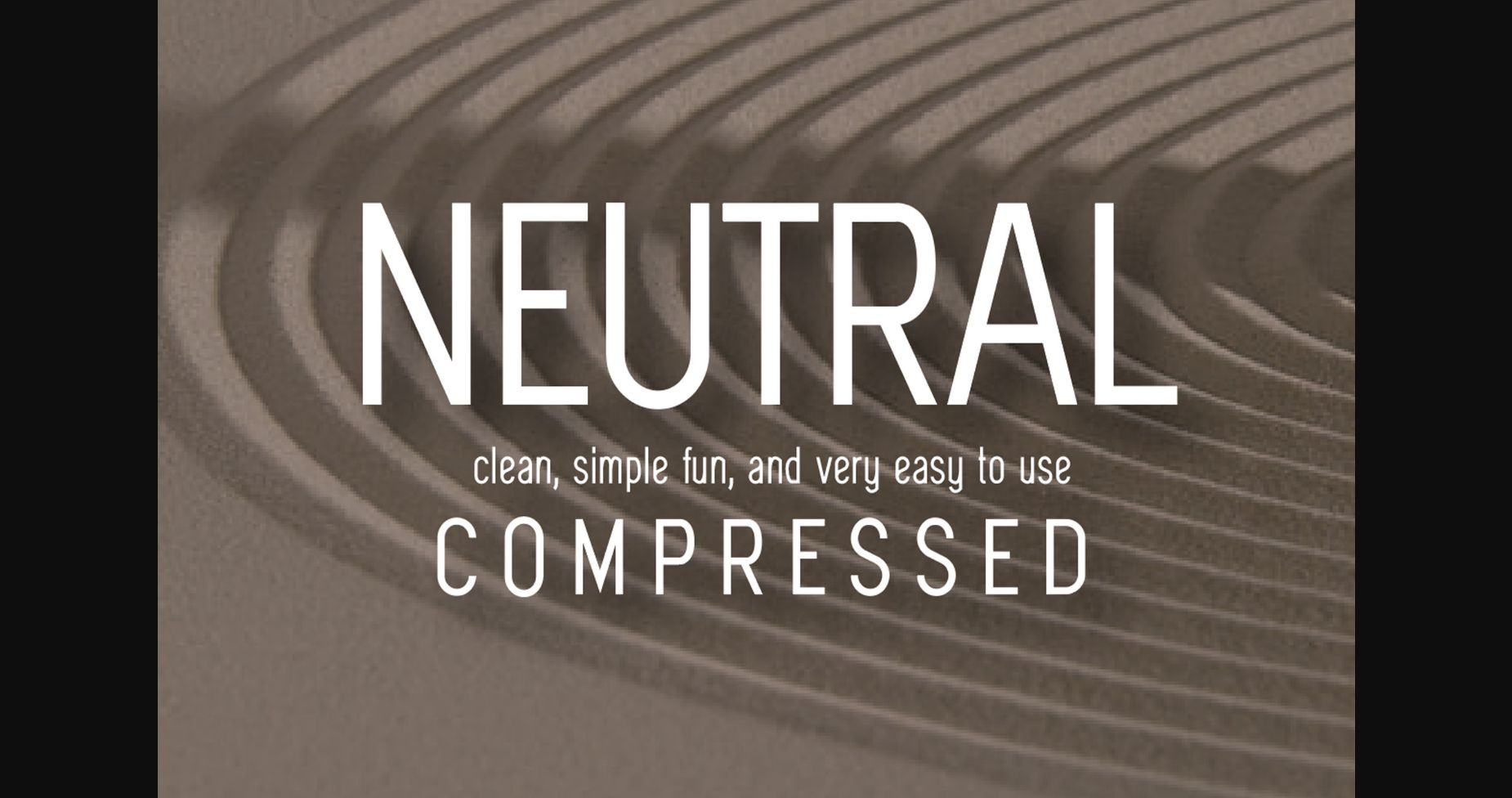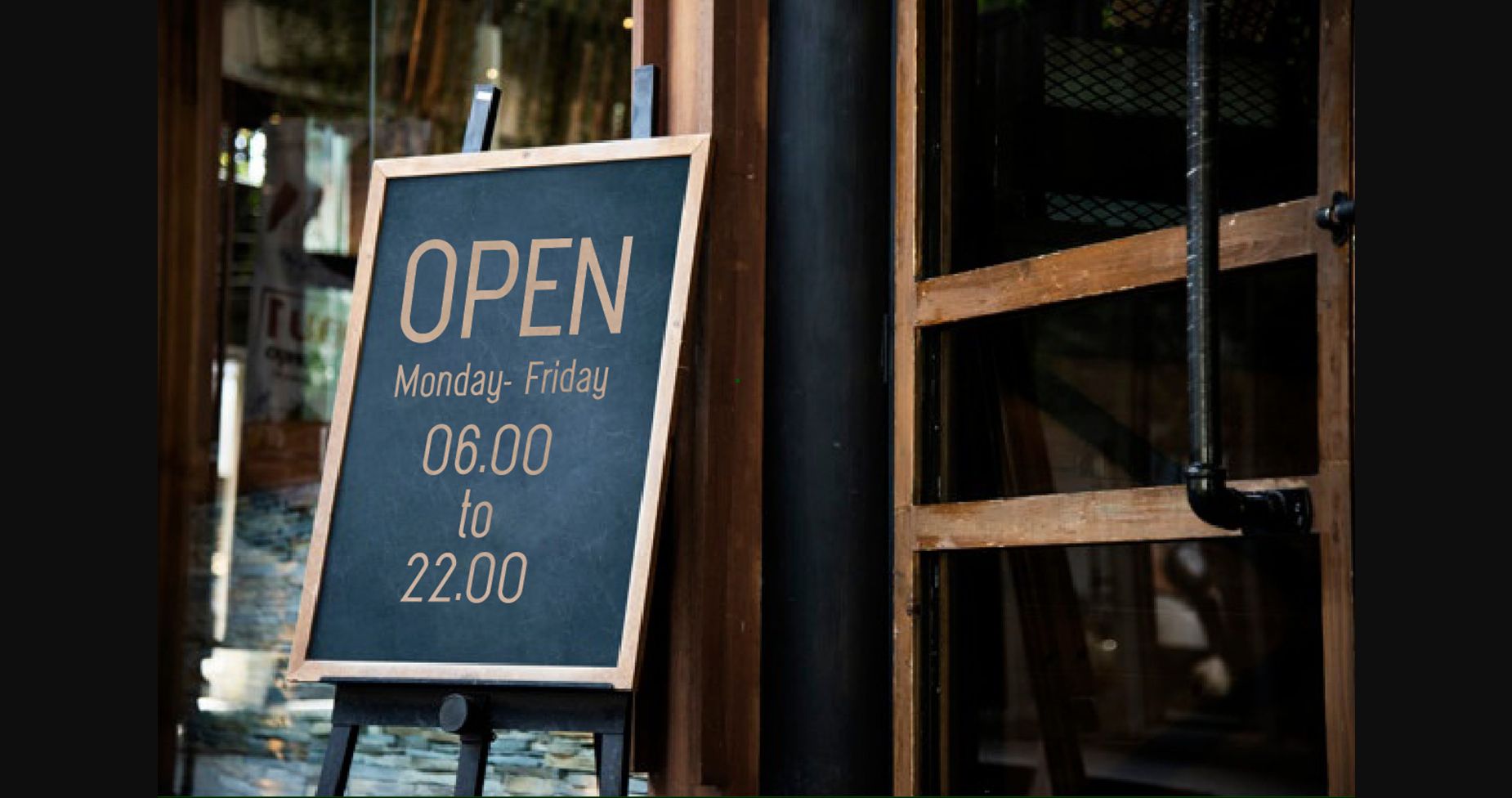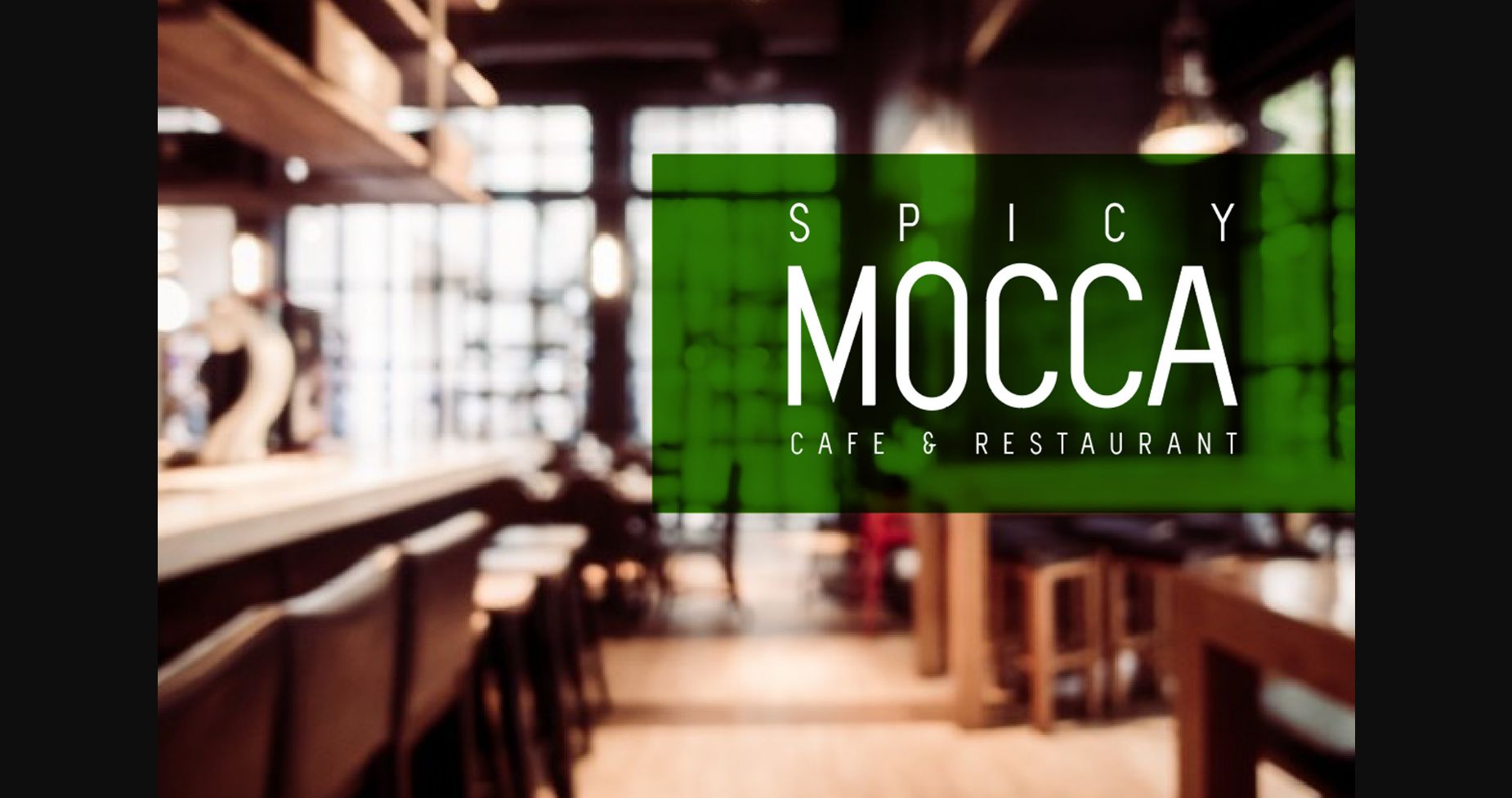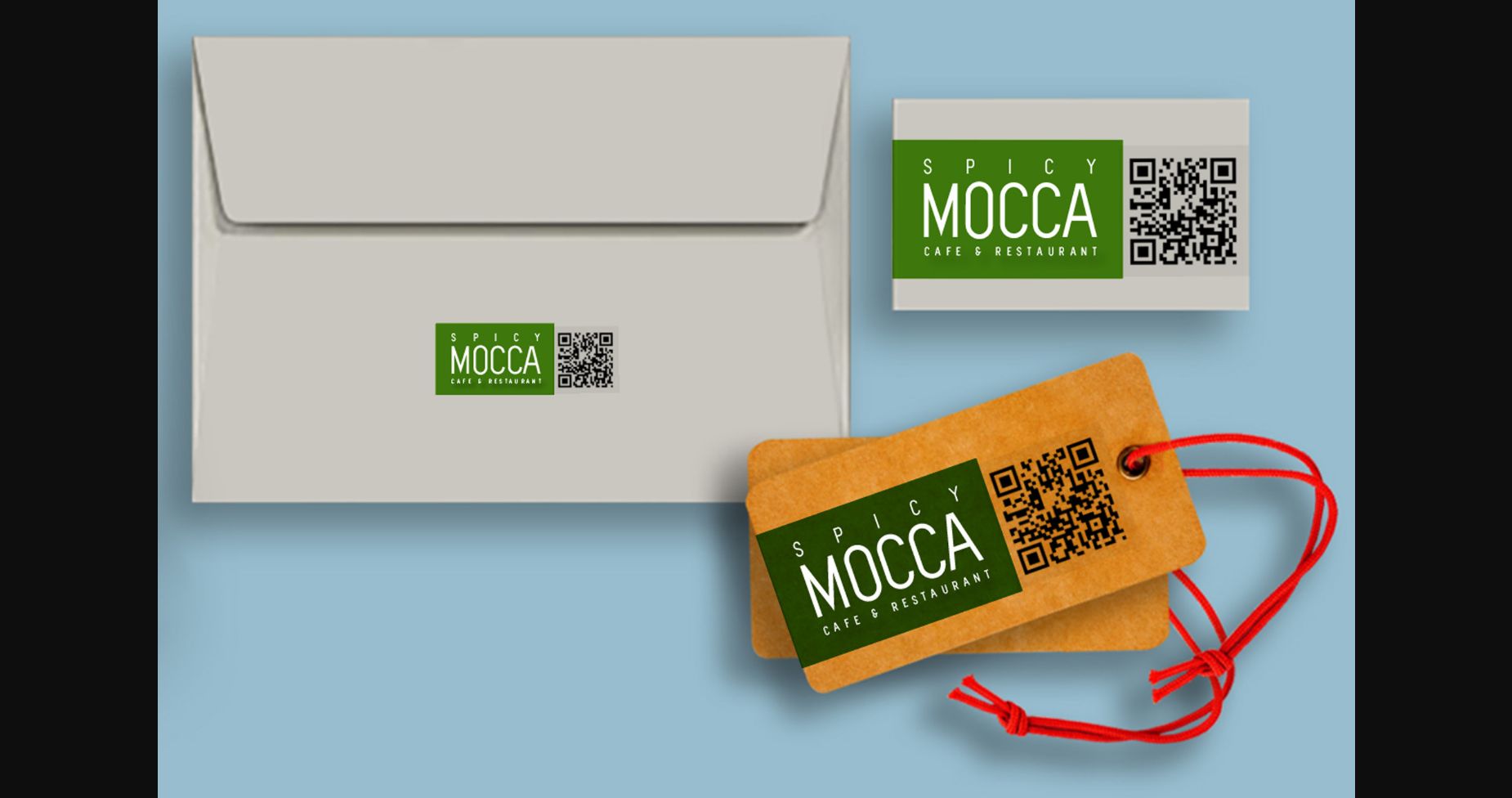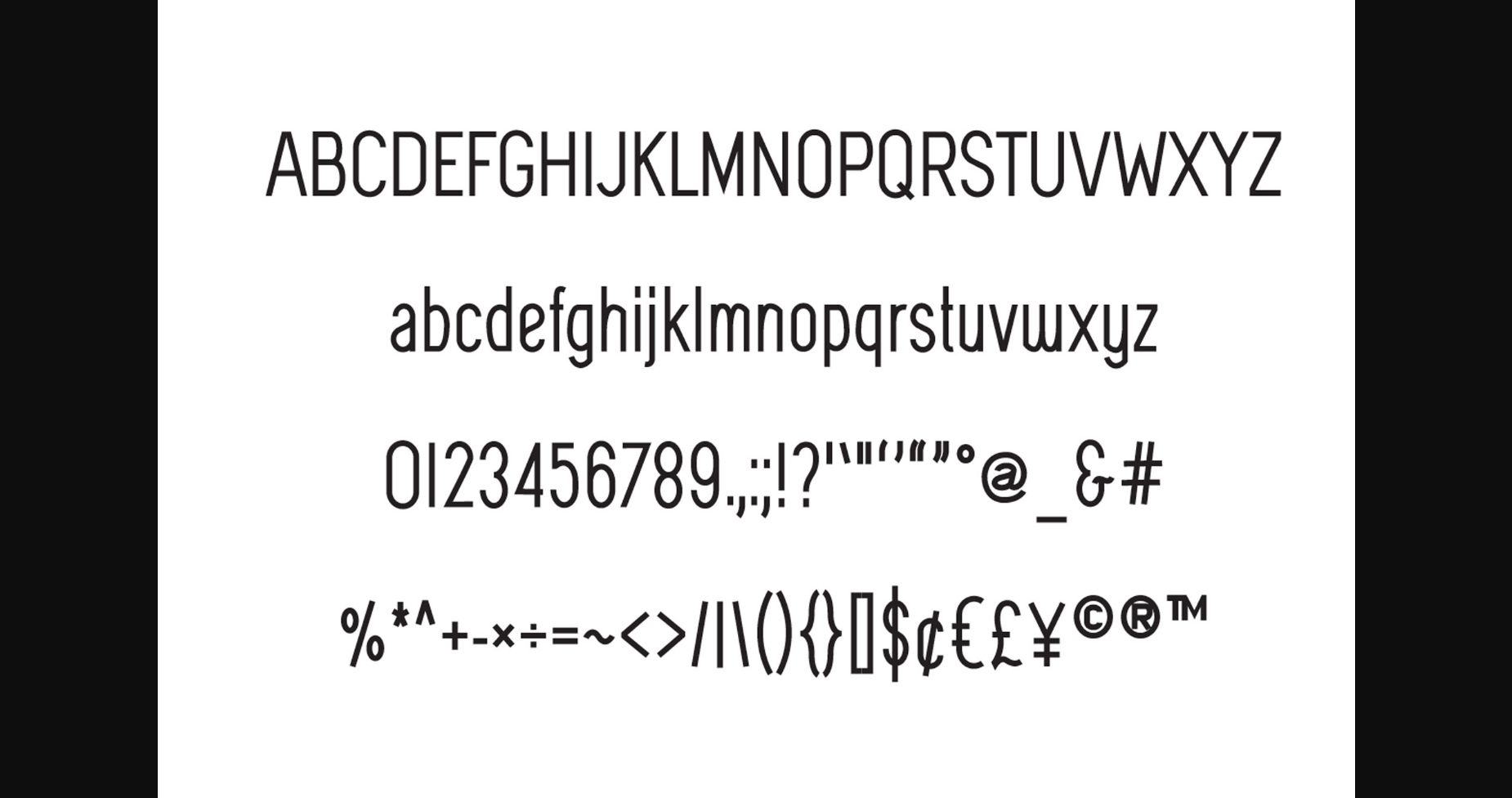
HomeSans Serif FontsNeutral Font Sans Serif Fonts Neutral Font FacebookXPinterestWhatsApp 1 of 8 ... Neutral Font Poster 2... Neutral Font Poster 3... Neutral Font Poster 4... Neutral Font Poster 5... Neutral Font Poster 6... Neutral Font Poster 7... Neutral Font Poster 8... About Neutral Font Neutral is a minimal and neat sans serif font. It can easily be matched to an incredibly large set of projects, so add it to your creative ideas and notice how it makes them stand out! DOWNLOAD NOW People also explored Worldchalk Font The Valentine Font Troverst Font Untidy Font Gengma Font Jasmine Font Romeo Juliet Font Gaffeur Among Us Font 364 0 TagsNeutralNeutral Font Previous articleNeutral FontNext articleNeutral Font LEAVE A REPLY Cancel reply Comment: Please enter your comment! Name:* Please enter your name here Email:* You have entered an incorrect email address! Please enter your email address here Website: Save my name, email, and website in this browser for the next time I comment. Personal Use Free BD Spinner Personal Use Free Read more about this font Deco Neue Wilde Personal Use Free Read more about this font Spaghetti Personal Use Free Read more about this font Anggiana Personal Use Free Read more about this font BLOG Free vs Paid Fonts: Why Investing in Premium Fonts Is Worth It Free vs Paid Fonts: Why Premium Fonts Are Worth It in 2025 The debate of free vs paid fonts continues in the design world. While... 5 Fonts That Will Dominate Design Trends in 2026 Best Fonts for YouTube Videos: Make Your Thumbnails Stand Out Best Fonts for T-Shirt Design – Top 2025 Picks